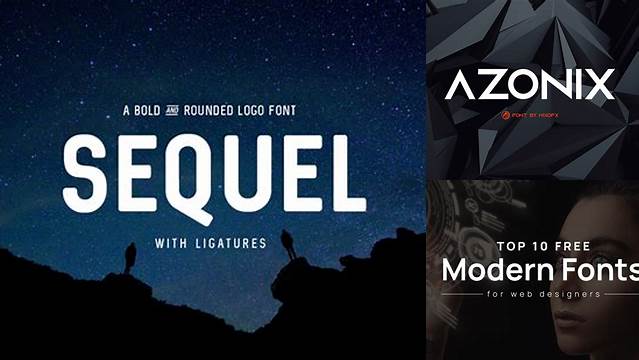
Modern Fonts: Free Downloads For 2026
Hey guys! Getting ready for 2026? One of the coolest things to plan for is the visual vibe, and that means awesome fonts! Finding the perfect modern fonts for your projects can be a game-changer. Whether you're designing a sleek website, creating eye-catching marketing materials, or just jazzing up your personal projects, the right font can make all the difference. And the best part? You don't always have to break the bank. There are tons of options for modern fonts that are available for free download. We're talking fonts that are not only stylish and contemporary but also won't cost you a dime. So, let’s dive into the world of modern fonts and how you can snag some amazing free downloads for your 2026 projects! From clean sans-serifs to elegant serifs and quirky display fonts, we've got you covered with insights and resources to elevate your designs.
Understanding Modern Font Trends for 2026
Alright, let's talk trends! Understanding the direction of modern fonts is crucial for staying ahead in 2026. We're seeing a big push towards fonts that are both functional and aesthetically pleasing. Think clean lines, geometric shapes, and a focus on readability. One major trend is the rise of variable fonts. These fonts allow you to adjust the weight, width, and other characteristics, giving you incredible flexibility in your designs. Another trend is the use of bold and impactful fonts for headlines and branding. These fonts grab attention and make a statement. On the flip side, there's also a growing appreciation for minimalist and understated fonts that convey a sense of sophistication and elegance. Consider how modern fonts reflect current design philosophies – a blend of digital innovation and classic principles. Don't forget about accessibility! As designers, we need to ensure that our font choices are readable and inclusive for everyone. This means considering factors like contrast, size, and legibility. By understanding these trends, you can make informed decisions about the modern fonts you choose for your projects, ensuring they're not only stylish but also effective. Let's keep our designs fresh and forward-thinking, guys!
How to Identify High-Quality Free Fonts
Not all free modern fonts are created equal, trust me. How do you separate the wheat from the chaff? Quality is key! First, look at the character set. Does the font include all the letters, numbers, and punctuation marks you need? Check for kerning issues (the spacing between letters) and make sure the font is readable at different sizes. A good font will have consistent spacing and proportions. Also, pay attention to the font's overall design and whether it aligns with your project's aesthetic. Does it look professional and polished, or does it seem amateurish? Read reviews and see what other designers are saying about the font. Look for fonts that have been downloaded and used by many people, as this is often a sign of quality. Finally, test the font in your design software to see how it renders. Does it look crisp and clear, or does it appear blurry or pixelated? By following these tips, you can ensure that you're choosing high-quality modern fonts that will enhance your projects and not detract from them. Let’s make smart choices, guys!
Integrating Modern Fonts into Your Design Projects
Alright, you've found some awesome modern fonts, now what? How do you actually use them effectively in your design projects? Integration is key! First, consider the overall style and tone of your project. Choose fonts that complement your design and convey the right message. Don't use too many different fonts – stick to a maximum of two or three to maintain a cohesive look. Use one font for headlines and another for body text, or use different weights and styles of the same font family. Pay attention to hierarchy and visual balance. Use larger, bolder fonts for important elements and smaller, lighter fonts for less important elements. Also, consider the readability of your font choices. Make sure the text is easy to read on different devices and screen sizes. Use appropriate line spacing and letter spacing to improve readability. Finally, test your designs with different users to get feedback on your font choices. Do they find the text easy to read? Does the font convey the right message? By following these tips, you can seamlessly integrate modern fonts into your design projects and create visually stunning and effective designs.
Predicting Future Font Trends Beyond 2026
Let's gaze into our crystal ball, shall we? What font trends can we expect to see beyond 2026? While it's impossible to predict the future with certainty, we can make some educated guesses based on current trends and technological advancements. One trend that is likely to continue is the rise of variable fonts. These fonts offer unparalleled flexibility and customization, and we can expect to see them become even more prevalent in the years to come. Another trend is the increasing use of AI in font design. AI can be used to generate new fonts, optimize existing fonts, and even create personalized fonts based on user preferences. We can also expect to see more fonts that are designed specifically for digital interfaces, with a focus on readability and accessibility. Additionally, there may be a resurgence of retro and vintage-inspired fonts as designers look to the past for inspiration. By staying informed about these trends, you can future-proof your designs and ensure that your font choices remain relevant and stylish for years to come. Always be looking ahead, guys!
Creating Your Own Modern Font
Feeling ambitious? How about creating your own modern font? It sounds intimidating, but it's totally doable with the right tools and know-how. There are several software programs available that make font design accessible to everyone. FontLab Studio, Glyphs, and RoboFont are popular choices among professional font designers, but they can be a bit pricey. For beginners, FontForge is a free and open-source option that offers a wide range of features. To create your own font, you'll need to start by sketching out the basic letterforms. Consider the overall style and tone you want to convey, and experiment with different shapes and proportions. Once you're happy with your sketches, you can import them into your font design software and begin digitizing them. Pay attention to details like kerning, spacing, and hinting to ensure that your font is readable and professional-looking. Creating your own font is a challenging but rewarding experience that can give you a unique perspective on typography and design. So, go for it and unleash your creativity! Who knows, you might create the next big font sensation!
Modern Fonts for Web Design
When it comes to web design, choosing the right modern fonts is crucial for creating a visually appealing and user-friendly website. The fonts you choose should be readable, accessible, and consistent with your brand's identity. For headlines, you can use bolder and more eye-catching fonts to grab attention. For body text, it's best to stick to clean and legible fonts that are easy to read on different devices and screen sizes. Some popular modern fonts for web design include Open Sans, Roboto, Montserrat, and Lato. These fonts are all sans-serif fonts that are known for their readability and versatility. When choosing fonts for your website, it's important to consider factors like loading speed, browser compatibility, and accessibility. Use web-safe fonts or optimize your fonts for the web to ensure that your website loads quickly and looks great on all devices. Also, make sure your font choices meet accessibility guidelines to ensure that your website is usable by people with disabilities. Choosing the right fonts can make a big difference in the overall look and feel of your website, so take the time to experiment and find the perfect fonts for your brand.
Modern Fonts for Print Design
Print design has its own set of font considerations. While web fonts need to be optimized for screens, print fonts need to look crisp and clear in physical form. Modern fonts for print often include serifs for better readability in long-form text, but clean sans-serifs can also work well for headings and shorter pieces. Think about the specific requirements of your print project. Is it a brochure, a poster, a book, or something else? Choose fonts that are appropriate for the medium and the intended audience. For example, a formal invitation might call for an elegant serif font, while a marketing flyer might benefit from a bold and attention-grabbing sans-serif. Always test your font choices by printing out samples before committing to a final design. This will allow you to see how the fonts look in print and make any necessary adjustments. Pay attention to details like font size, line spacing, and kerning to ensure that your text is readable and visually appealing. With the right font choices, you can create print designs that are both beautiful and effective.
Where to Learn More About Typography
Want to dive deeper into the world of typography? Here are some resources where you can learn more: Books: "The Elements of Typographic Style" by Robert Bringhurst is considered the bible of typography. "Thinking with Type" by Ellen Lupton is a more accessible introduction to the subject. Online Courses: Platforms like Skillshare, Coursera, and Udemy offer a wide range of typography courses for all skill levels. Websites and Blogs: Sites like Typewolf, I Love Typography, and Fonts in Use offer articles, tutorials, and inspiration on all things typography. Design Communities: Join online design communities like Dribbble and Behance to connect with other designers and learn from their expertise. Typography Workshops: Attend typography workshops to learn from experienced instructors and get hands-on practice with typography techniques. By taking advantage of these resources, you can expand your knowledge of typography and become a more skilled and confident designer. Never stop learning, guys!